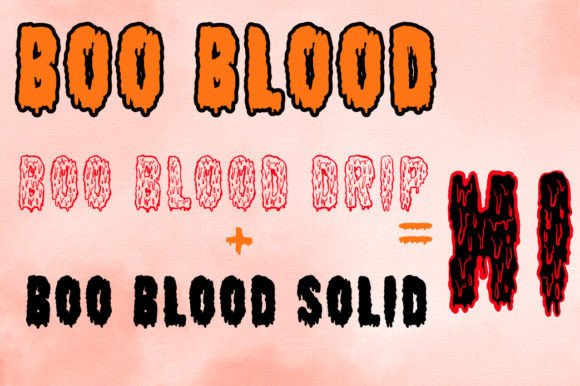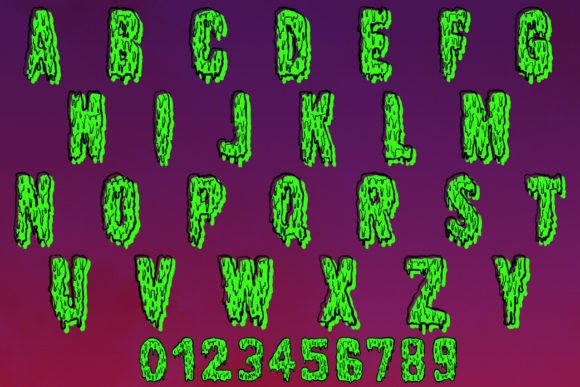
The Perfect Font for a Spook-tacular Touch
As a designer, there’s nothing quite like the thrill of bringing a project to life. You’ve got your concept, your color palette, and your typography – but sometimes, it’s that one special font that makes it all come together. For me, that moment was when I stumbled upon the Boo Blood Font. Its bold, all caps letters seemed to scream “Halloween” in the best possible way, and I knew I had to have it.
The Boo Blood Font is more than just a font – it’s a statement piece. Perfect for crafting, digital designing, presentations, or even greeting cards, this font adds a touch of trendiness that’s hard to resist. And for designers, that’s exactly what we’re looking for – a font that’s not only on-trend but also versatile and easy to use.
Key Features of Boo Blood Font
- Unique Characteristics: Boo Blood Font features a unique blend of modern and vintage elements, with intricate details and a bold, gothic-inspired design.
Boo Blood Font Review
Overall, I think the Boo Blood Font is a unique and intriguing addition to any design project. Here are some things that really work well:
- ✨ The font’s eerie and mysterious vibe is perfect for creating a spooky atmosphere in Halloween-themed projects or for adding a sense of drama to titles and headings.
- ✨ The font’s bold and expressive lines make it easy to read, even at small font sizes.
- ✨ The font’s versatility allows it to be used in a wide range of design projects, from horror movie posters to gothic-inspired book covers.
However, there are some limitations to keep in mind:
- ⚠️ The font may be too overwhelming for some designs, particularly those that require a more subtle or understated look.
- ⚠️ The font’s bold lines may not be suitable for projects that require a lot of fine detail or intricate typography.
- ⚠️ The font may not be as easily legible in smaller sizes or when used in conjunction with other fonts that have a similar style.
Overall, I think the Boo Blood Font is a great choice for designers who want to add a touch of drama and mystery to their projects. Just be mindful of the potential limitations and use it thoughtfully to get the best results.
Tips for Getting the Most Out of Boo Blood Font
Experiment with different font sizes, colors, and styles to create a unique look. Combine Boo Blood Font with other fonts to add visual interest. Use it sparingly to create emphasis or highlight important information.
Use Boo Blood Font for:
- Spooky or horror-themed designs
- Creepy or eerie titles and headings
- Whimsical or playful designs
Alternatives to Boo Blood Font
Great Vibes is a modern, elegant script font that is perfect for creating a sophisticated and stylish look. It is ideal for use in branding, advertising, and editorial design. Great Vibes has a similar feel to Boo Blood Font, but with a more refined and polished look.
Comparison: Great Vibes has a more refined and elegant look compared to Boo Blood Font, which has a more edgy and bold feel. Great Vibes is also more versatile and can be used in a wider range of design applications.
Alex Brush is a beautiful, handwritten font that is perfect for creating a personal and emotional connection with your audience. It is ideal for use in branding, packaging, and editorial design. Alex Brush has a similar handwritten feel to Boo Blood Font, but with a more delicate and refined look.